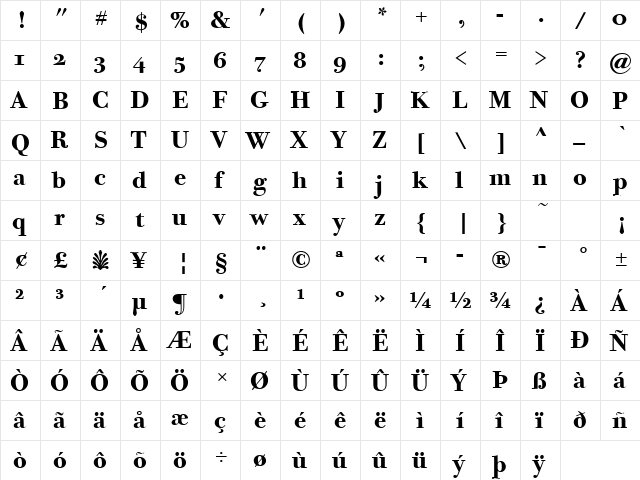
Bodoni Twelve OS ITC TT Bold
Design Context for Bodoni Twelve OS ITC TT Typeface
Bodoni Twelve OS ITC TT takes a measured approach to typography — its balanced proportions and neutral character make it a reliable workhorse for both digital and print work. Its bold stroke weight gives it real presence on the page.